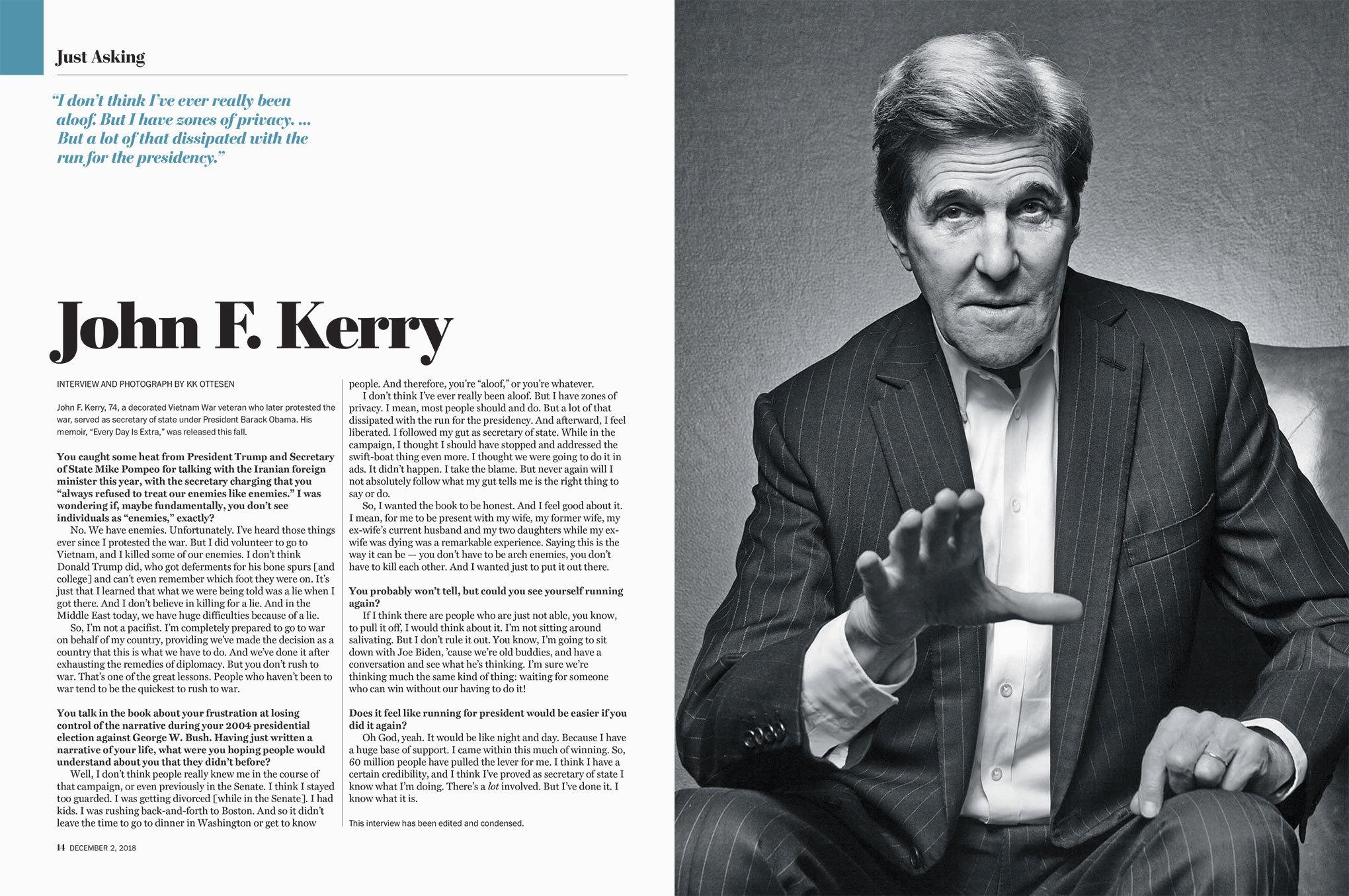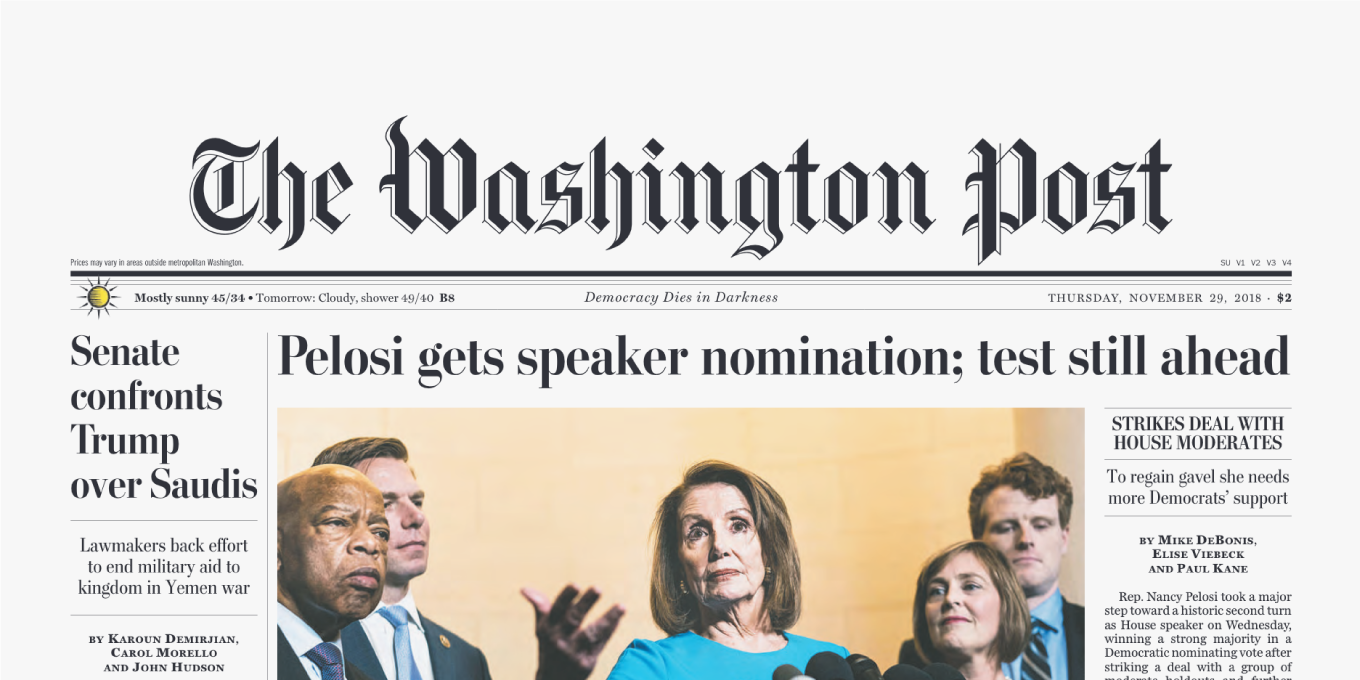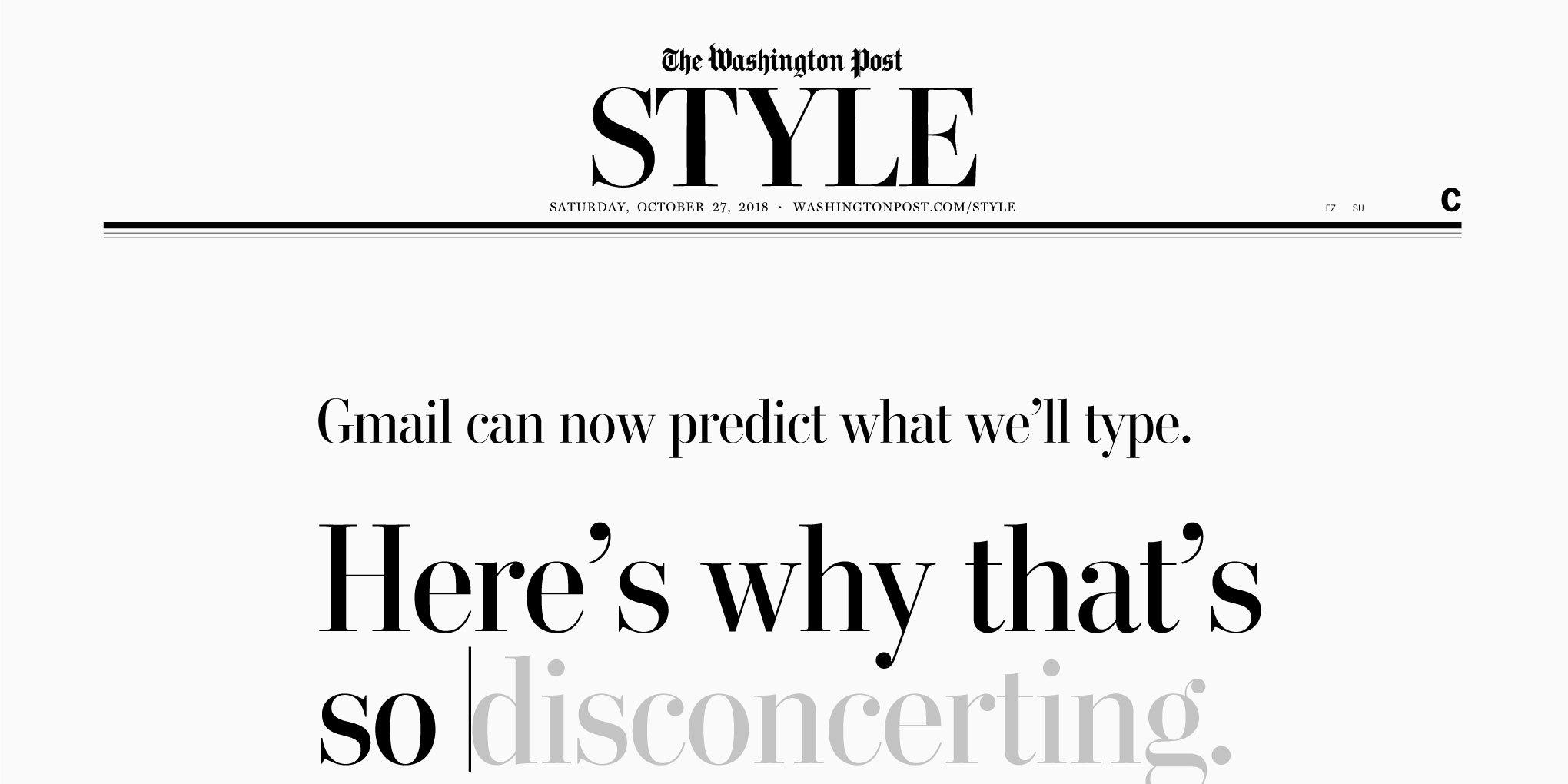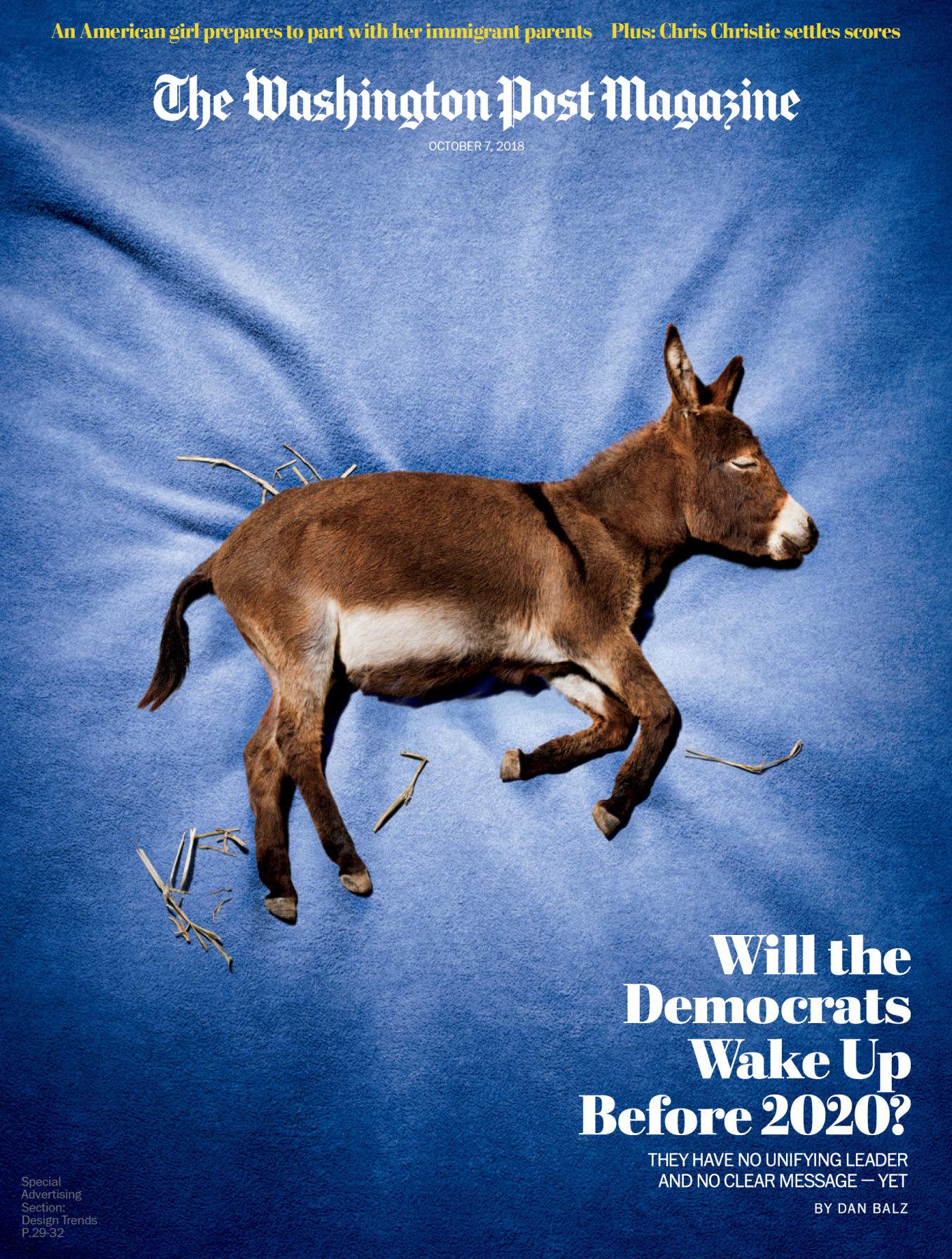
When The Washington Post introduced its redesigned newspaper in a smaller format in early March 1998, it marked the culmination of an intense process that began two years earlier. Although the Post decided to keep the title-case headlines and continue using Bodoni, Michael Keegan (assistant managing editor for news design from 1985 to 2008) found the capitals too prominent and thought they made the paper look old-fashioned.
Keegan commissioned Font Bureau to design a custom Bodoni with smaller, lighter caps. Legendary type designer Matthew Carter started working on his interpretation of the iconic neo-baroque face in the latter part of 1997. He developed Regular and Bold weights, each in Roman and Italic, with additional fonts featuring fractions and old style figures for all styles. The new headline faces appeared for the first time in the relaunched Washington Post with the affectionate name “Postoni”.
In most cases, that would be the end of the story. Over the next two decades, however, Postoni’s design space kept expanding at the behest of the Post’s team. In 2009, Richard Lipton, Jill Pichotta, and Dyana Weissman drew new display weights with a higher contrast: Regular and Bold in regular and condensed widths, all with matching italics, for a total of eight new styles. Three years later, new Standard weights bridged the gap between the original Postoni and Postoni Display: Regular and Bold in regular and wide widths, again with matching italics for a total of eight additional styles. The latest additions came in 2018: Black and Ultra weights with italics were added to regular widths of the Display subfamily by Lipton. Postoni, which started out as a modest four-style family, has grown into a twenty-four-style custom headline family.